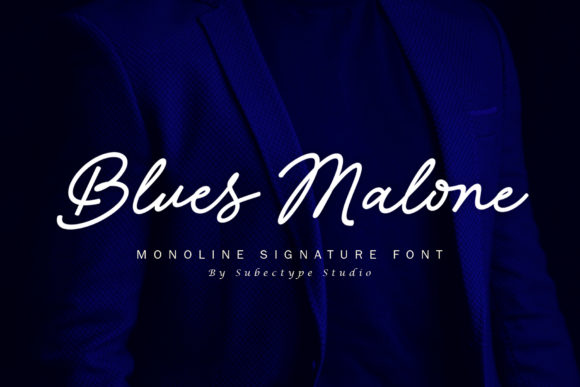
Introducing the Blues Malone Font: Where Elegance Meets Authenticity
In a world saturated with digital designs, the Blues Malone Font stands out as a refreshing splash of authenticity. This meticulously crafted script font, born from the creative genius of Subectype, captures the essence of timeless elegance and modern calligraphy, offering a touch of sophistication to your digital creations.
Step into the realm of beautiful typography with Blues Malone, where each letter dances across the screen with grace and fluidity. Inspired by the enduring charm of handwritten notes, this font adds a personal touch to your designs, evoking a sense of warmth and authenticity.
From heartfelt invitations to captivating social media posts, Blues Malone effortlessly elevates your crafting projects to new heights. Its versatility knows no bounds, adapting seamlessly to a myriad of creative endeavors. Whether you're a seasoned designer or just starting your journey into the world of typography, Blues Malone is your perfect companion.
Indulge in the elegance of flowing strokes and the charm of authentic calligraphy. Let Blues Malone transform your digital creations into works of art, leaving a lasting impression on your audience. Embrace the beauty of handwritten elegance and elevate your projects to the highest level.